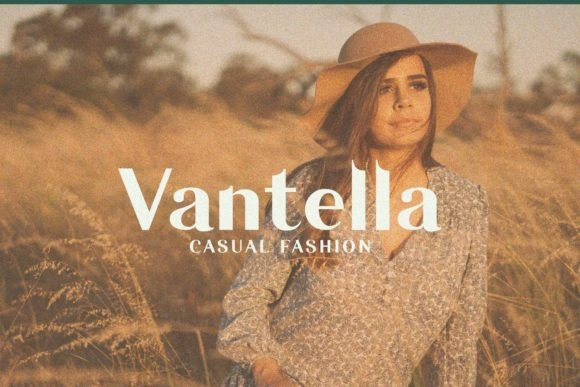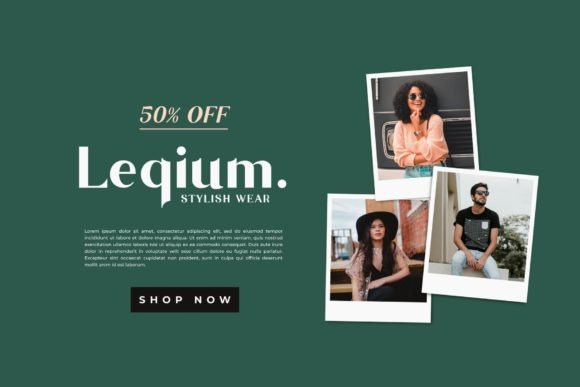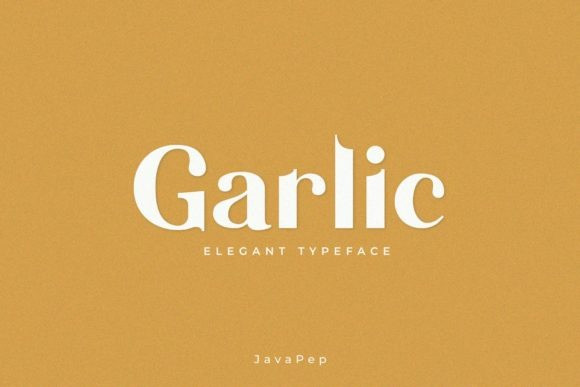
Garlic Font
Garlic Font is a simple and elegant sans serif font with an undeniably clean feel. With its neat and beautiful arrangement of letters, this typeface will look outstanding in both formal and non-formal designs.